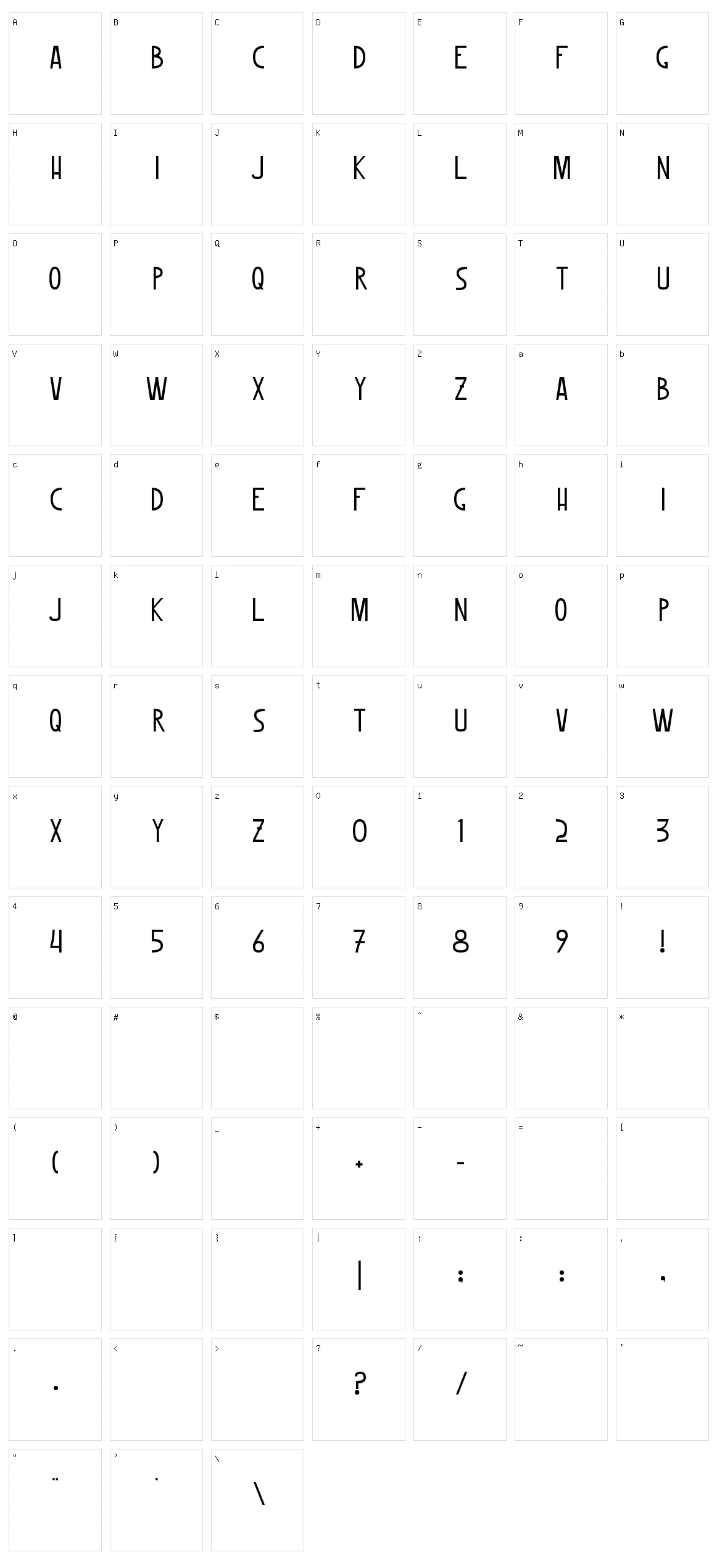
By Eric Wiryanata. November 2006.
Woomble was taken from a band frontman. if you share the same musical taste you'll know who he is.
but the design was coming nowhere from him, i just thought it would fit.
this is not the complete version. so that is why you'll find many empty glyphs. and i haven't put the small caps either.
Note#2: This typeface is ideal for logos and general design.
It isn't very suitable to be used with word-processors as it lacks some symbols and letters.